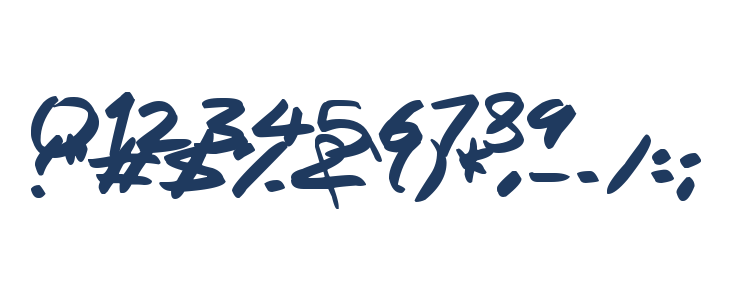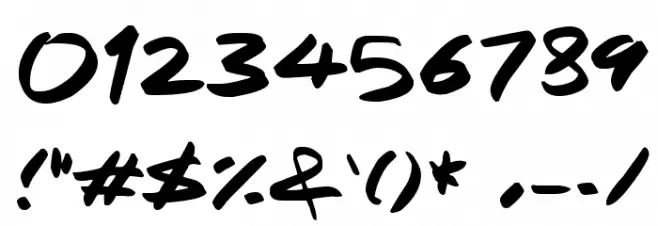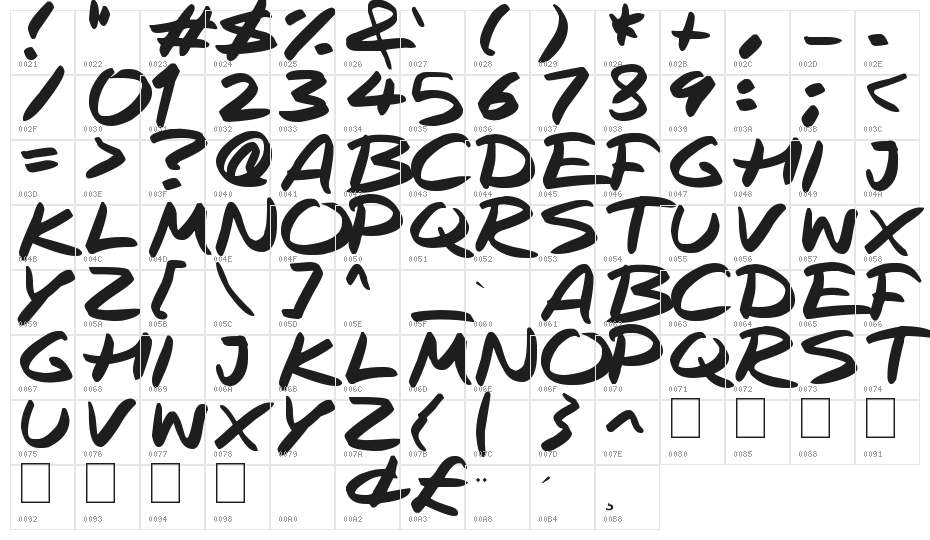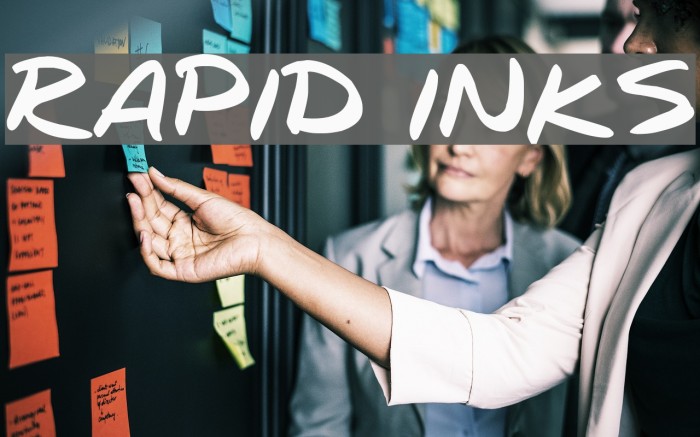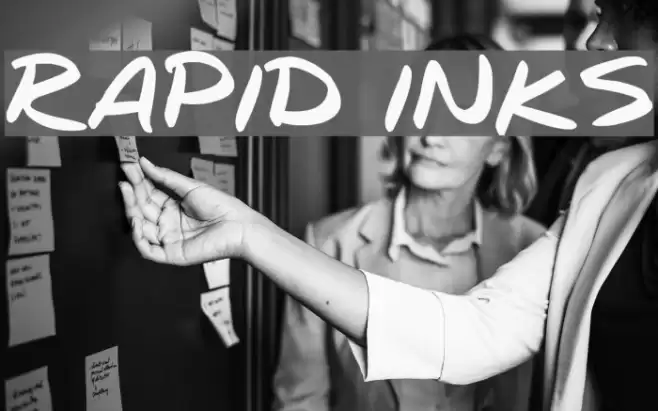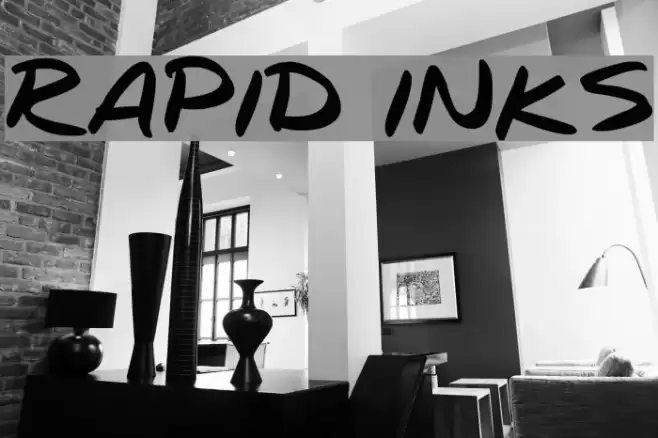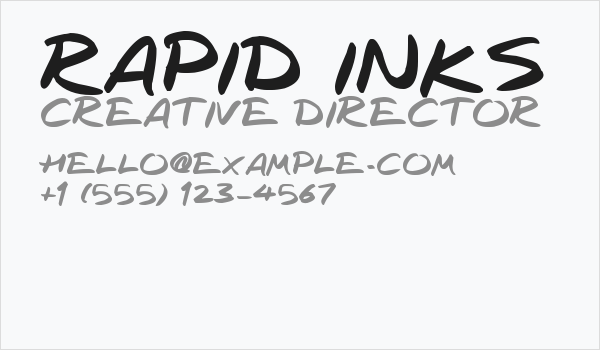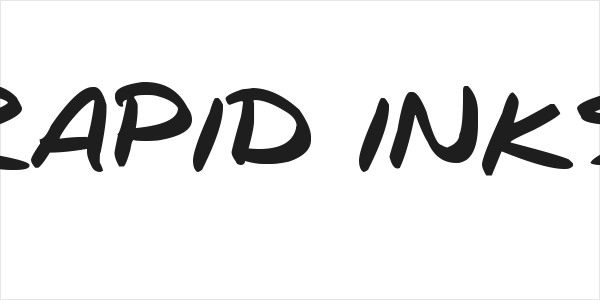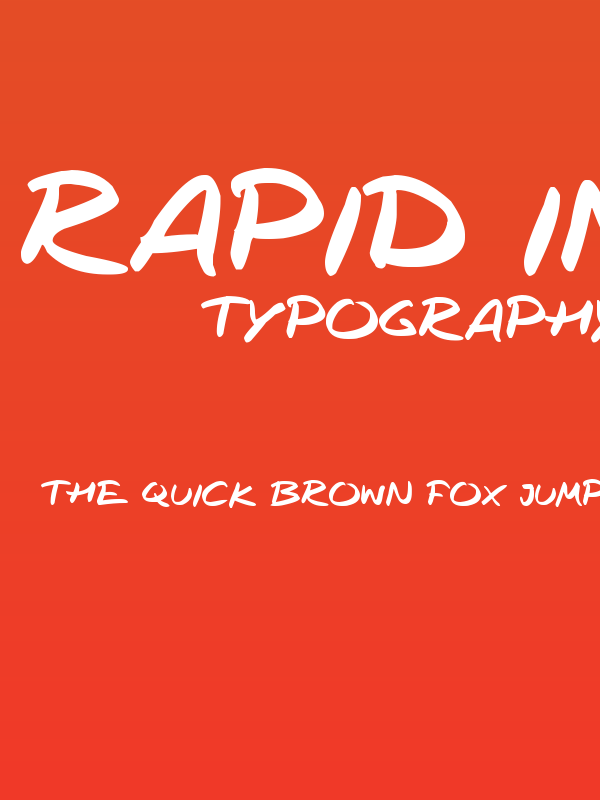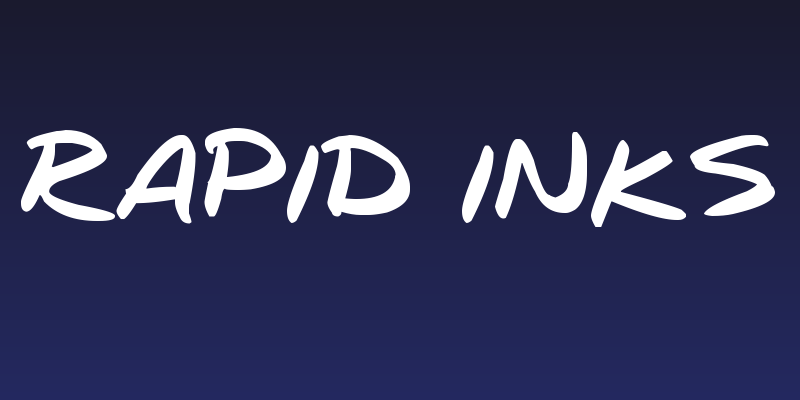
Rapid Inks Font
Rapid Inks Description
This font exudes a dynamic and energetic style, characterized by its bold and fluid strokes that mimic the natural flow of handwriting. The letters are slightly slanted, adding a sense of motion and spontaneity. The uppercase and lowercase characters maintain a consistent style, with rounded edges and a playful yet sophisticated appearance. The numerals and special characters follow the same design ethos, ensuring a cohesive look across all text elements. This font is ideal for projects that require a personal touch, such as invitations, greeting cards, or branding materials that aim to convey creativity and approachability.